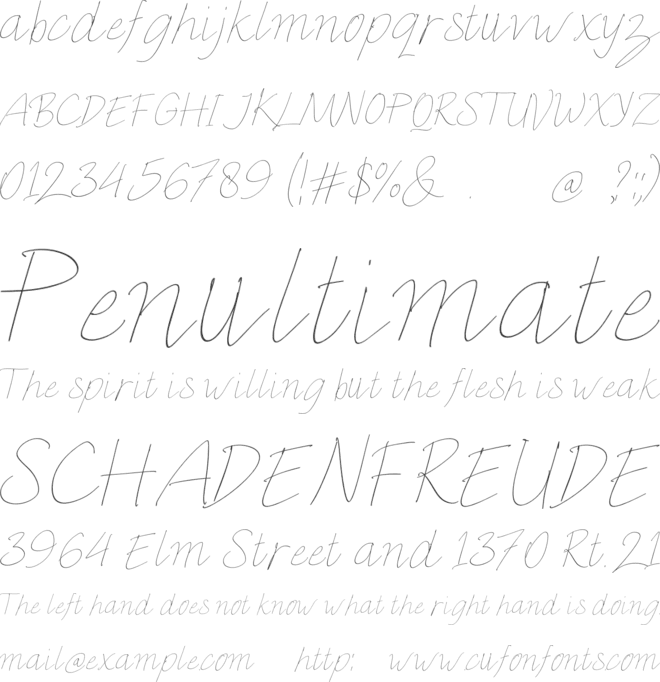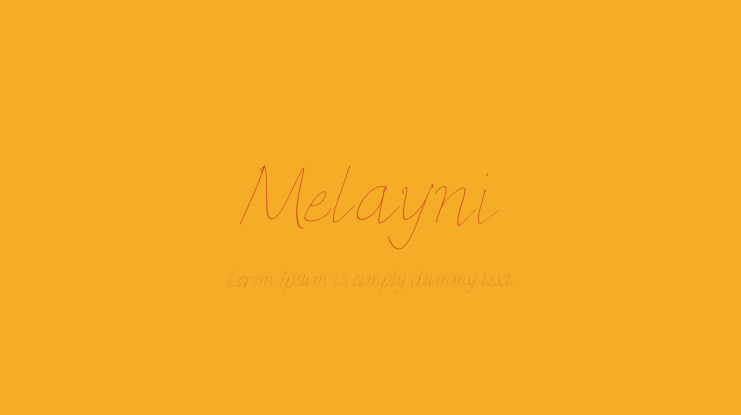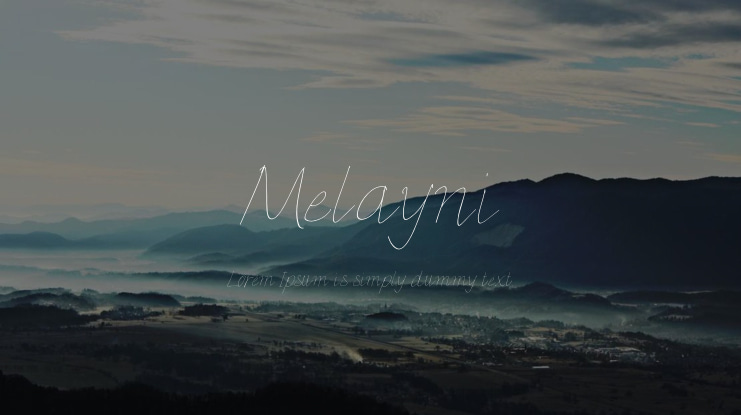
Melayni Font
Melayni is a beautiful monoline script font, it is the perfect script to create jaw-dropping designs and help you to make your work stand out.